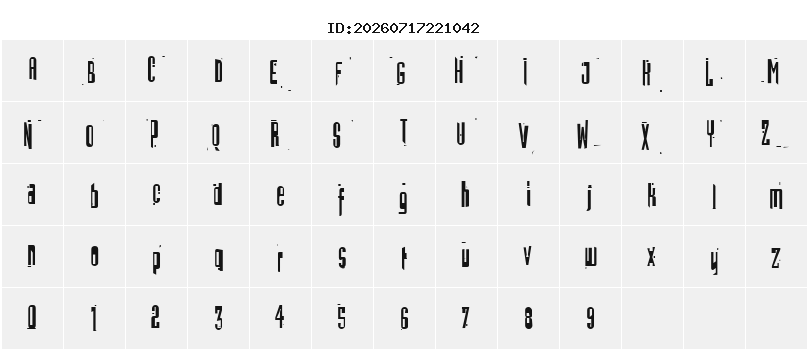
• Font Name: Batmos
• Full Font Name: Batmos Regular
About Batmos.ttf
Batmos.ttf is a modern, elegant sans-serif font designed for ultimate readability and visual harmony. Perfect for branding, headlines, web design, and print materials.